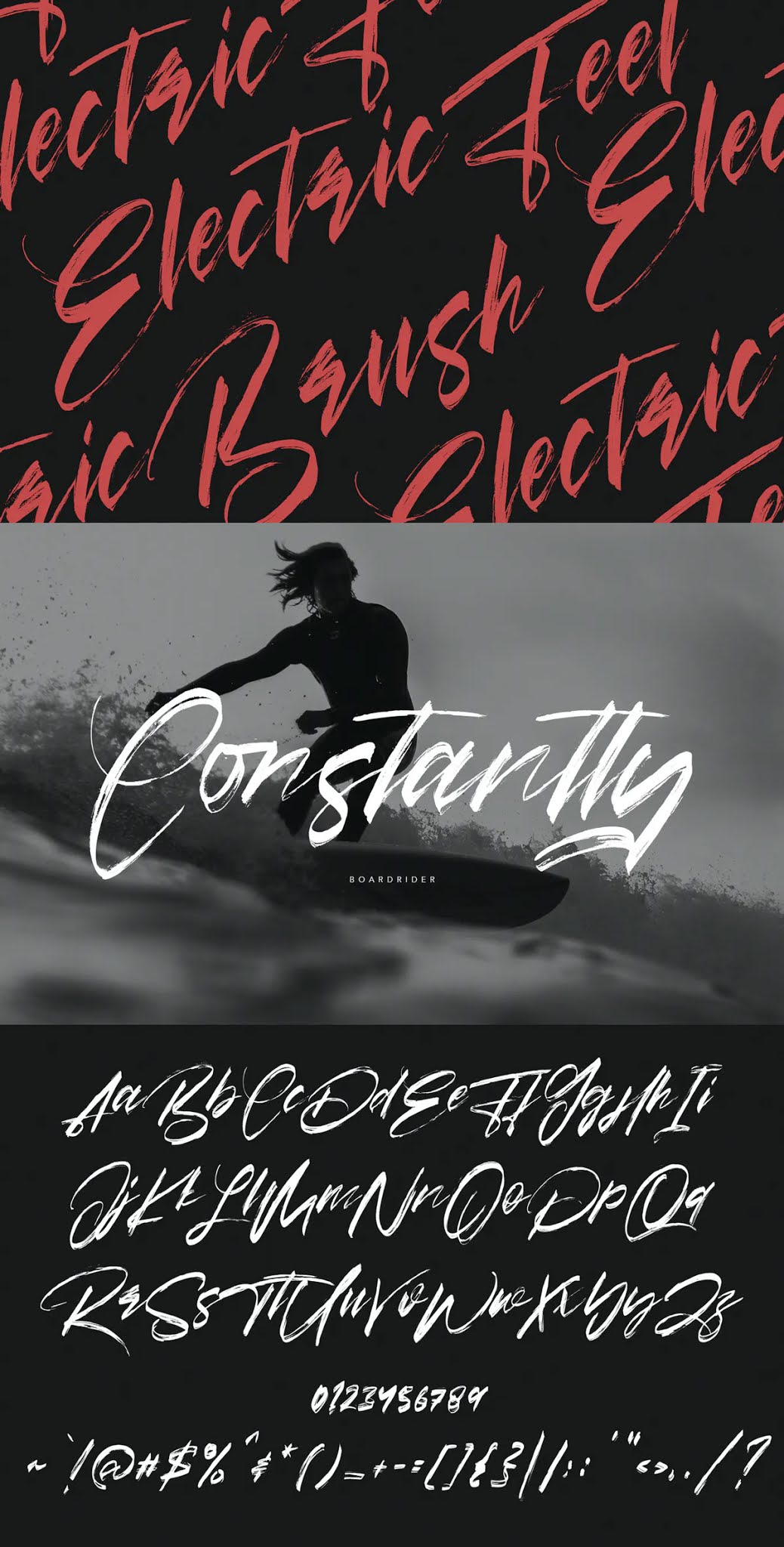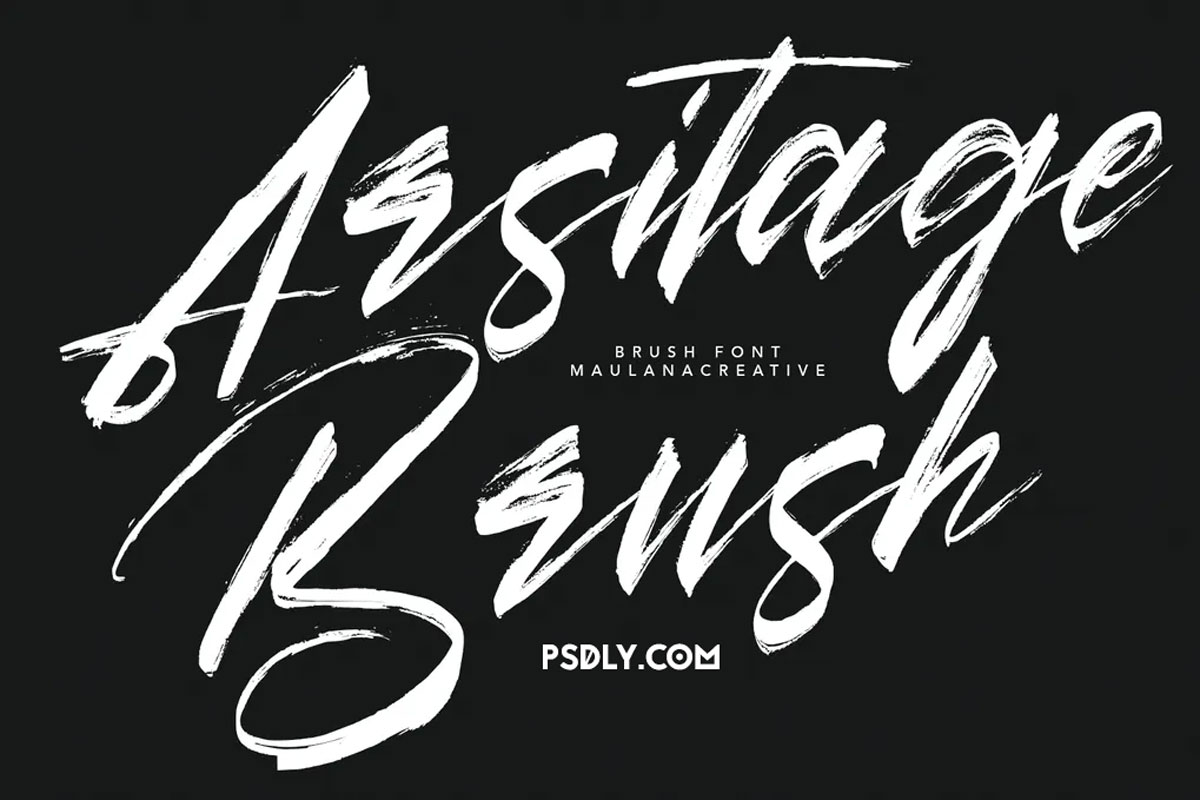
Arsitage Brush Font
Envato Elements Arsitage Brush Font Free Download. Give your designs an authentic handcrafted feel. “Arsitage Brush Font” is perfectly suited to signature, stationery, logo, typography quotes, magazine or book cover, website header, clothing, branding, packaging design and more.